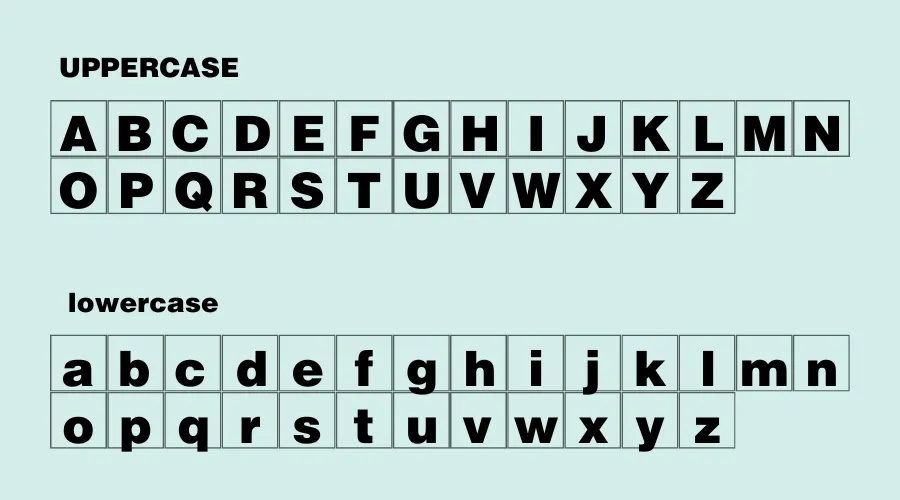
About Helvetica Black Font
Helvetica Black Font has a nice elegant design that is created by Max Miedinger and Eduard Hoffmann. This font has an extremely bold feature that contributes to its clear and obvious reading.
It has recognized elements that may be utilized in many designs. This font design includes both lowercase and uppercase character sets. The free version can be seen here. This design can be used to create any kind of design that needs an elegant look.
It also includes a contemporary special symbol and numerals. The euro sans font is the alternative font to this typeface. Numerous projects can be created by using this typeface. If you need a typeface to give your project a unique look. This font style works best for headers and subtitles in advertisements.